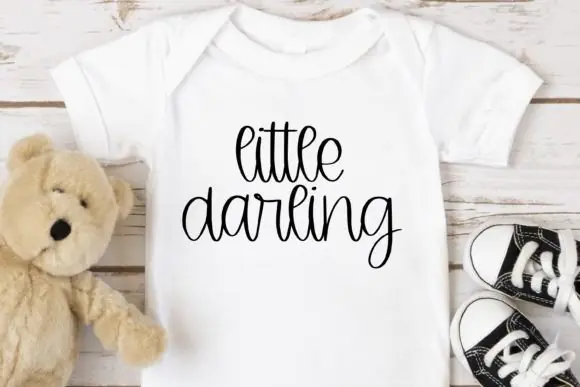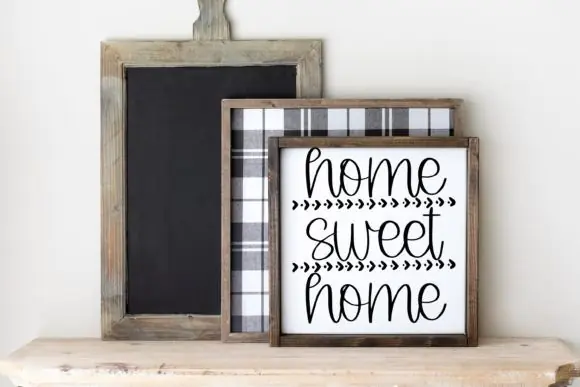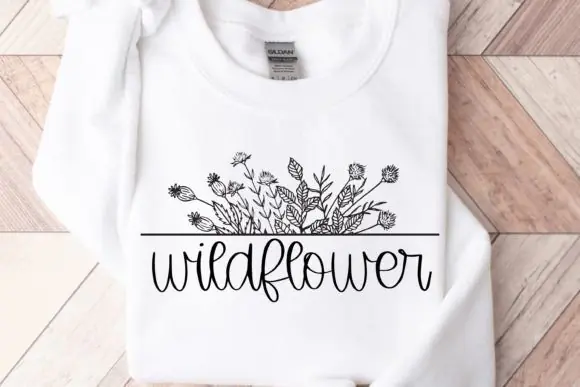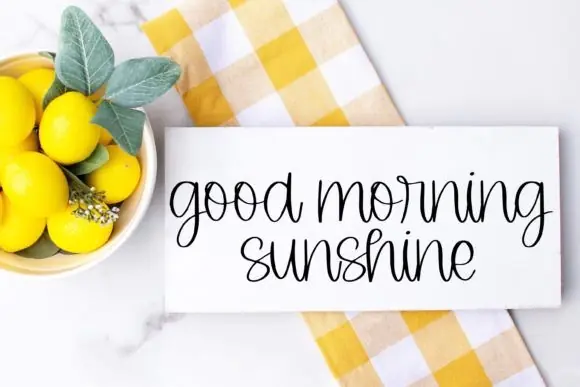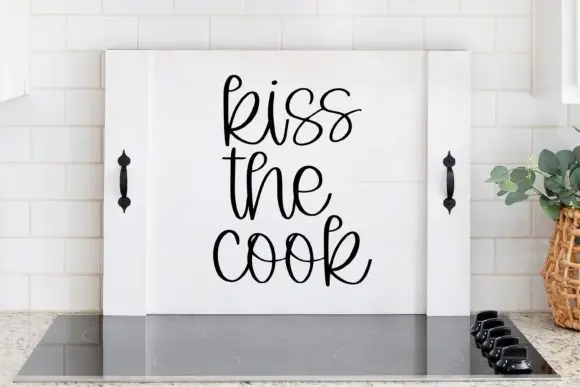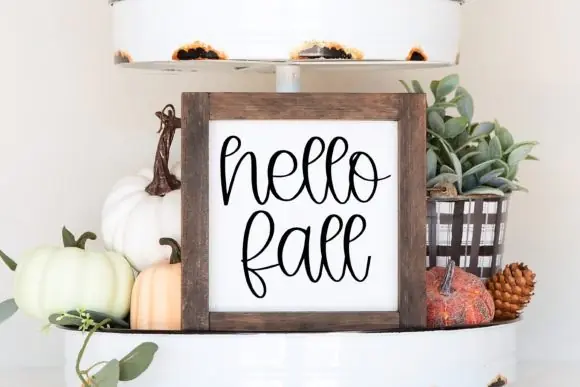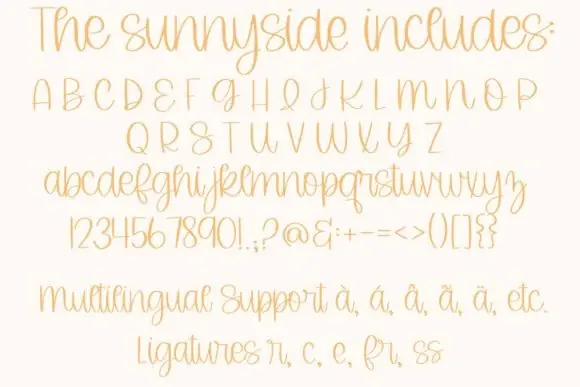
The Sunnyside Font | Cute Script Handwritten Font for Cricut, SVG Designs, Invitations, Greeting Cards, Personalized Crafts & Creative Projects
Create sweet, charming, and expressive designs with The Sunnyside Font, an adorable cute script font designed for Cricut users, crafters, designers, and creative business owners. With elegant curves, smooth strokes, and a lovely handwritten feel, this font adds a warm and delightful touch to your projects.
The Sunnyside Font is perfect for invitations, greeting cards, personalized crafts, Cricut SVG designs, stickers, mugs, t-shirts, tote bags, labels, wall art, social media graphics, handmade gifts, planner pages, product packaging, and small business branding. Its soft cursive style makes your typography feel friendly, creative, and beautifully handcrafted.
This font is especially useful for Cricut Design Space and cutting machine projects, making it a great choice for SVG designers and crafters who want clean, stylish lettering for physical products. Whether you are creating custom gifts, party items, printable designs, or everyday craft projects, The Sunnyside Font helps your work look polished and full of personality.
• Cricut Design Space projects
• SVG craft designs
• Invitations and greeting cards
• Personalized gifts
• T-shirt and mug designs
• Stickers and labels
• Tote bags and aprons
• Printable wall art
• Planner pages
• Product packaging
• Handmade craft projects
• Small business branding
• Party decorations
• Adorable cute script style
• Smooth handwritten curves
• Perfect for Cricut and SVG designs
• Great for invitations, cards, and personalized crafts
• Adds a charming handmade touch
• Suitable for both digital and physical projects
• Easy to use for creative and craft-based designs
The Sunnyside Font is a beautiful choice for anyone who wants to create cute, elegant, and expressive designs with a soft handwritten script look.